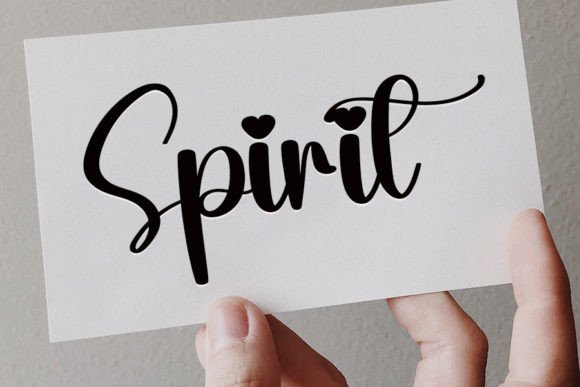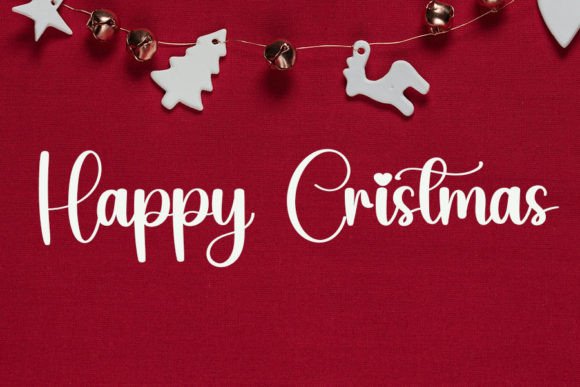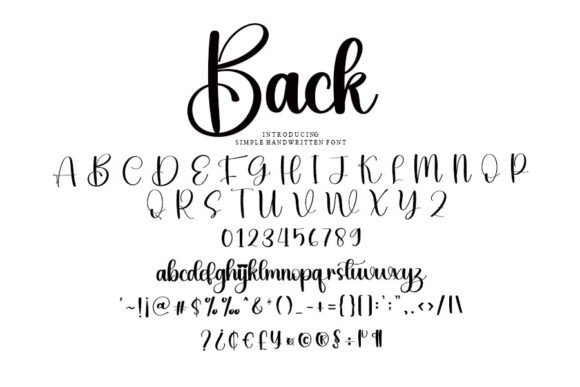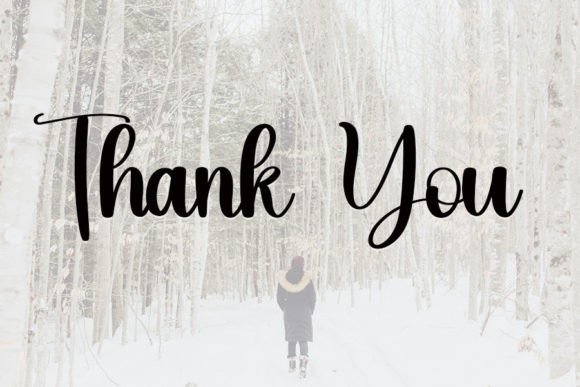
Back Font
Trendy Handwritten Font – Back
Back is a trendy handwritten font that combines the grace of classic calligraphy with a modern design twist. With its smooth lines and elegant curves, this font is perfect for designers who want to add a sense of sophistication and personality to their creative work.
Inspired by Timeless Calligraphy
Drawing inspiration from traditional calligraphy, the Back font delivers a natural handwritten feel that suits today’s digital aesthetics. Whether you’re designing wedding invitations, luxury logos, or digital art, this trendy handwritten font provides the perfect balance of style and readability.
Where to Use Back Font
Back is a versatile choice and can be used in both professional and casual projects. It fits a wide range of design applications, such as:
• ✍️ Elegant logos and branding
• 💌 Wedding invitations and stationery
• 🧾 Quotes and social media content
• 🛍️ Product packaging and labels
• 📘 Book covers and blog headers
• 🎨 Digital downloads and printable art
Because of its clean, stylish form, Back can elevate any design with just the right amount of flair.
It’s also PUA encoded, which means you’ll have full access to its swashes, alternates, and unique characters without needing advanced design tools.
Why Choose a Trendy Handwritten Font Like Back?
Handwritten fonts like Back help make designs feel personal and engaging. They resonate especially well in branding and visual storytelling. Back stands out because of its:
• Elegant flow and smooth baseline
• Contemporary appeal with a timeless twist
• Professional readability across sizes
• Perfect balance between casual and formal aesthetics
Whether you’re a designer, small business owner, or digital creator, Back can give your work that polished handwritten style people love.
Creative Inspiration
Designers are already using Back for:
• Custom logo designs
• Modern quote posters
• Thank you card templates
• Branding for boutique businesses
• Elegant social media graphics
• High-quality downloadable design packs
Whatever the use case, Back is the trendy handwritten font that adds personality without sacrificing clarity.
If you’re looking for a font that combines the elegance of classic calligraphy with modern design sensibilities, look no further than Back. It’s stylish, readable, and versatile—ideal for any creative project.